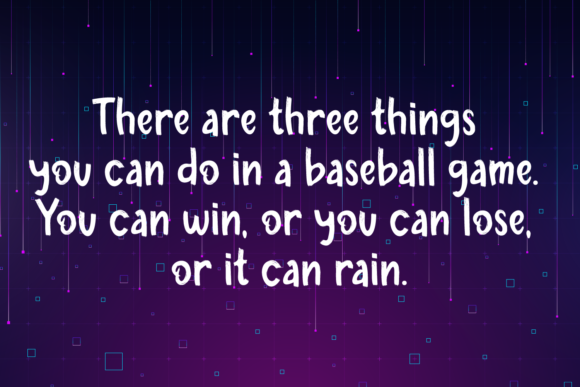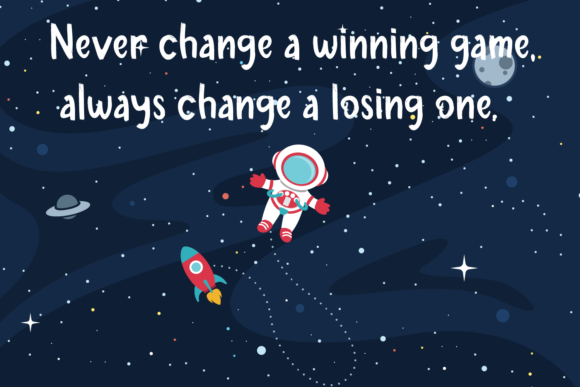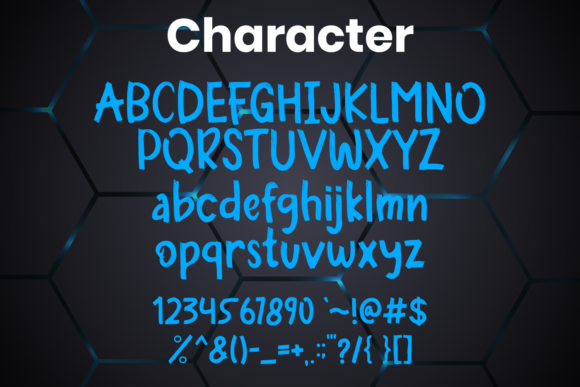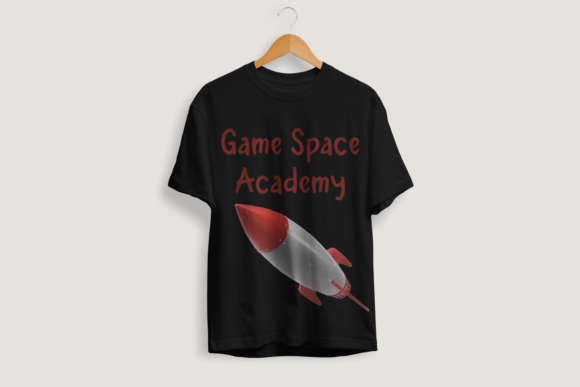
Introducing Game Space Academy Font: A Sweet Paint Brushed Display Font
Are you a designer or crafter looking for a unique and versatile font to elevate your creative projects? Look no further than the Game Space Academy Font, a sweet paint brushed display font that’s perfect for informal or casual designs. In this article, we’ll dive into the features and benefits of this fantastic font, and explore how it can add a touch of personality to your work.
A Strong yet Friendly Shape
Game Space Academy Font boasts a strong yet friendly shape that’s sure to capture attention. The font’s paint brushed texture gives it a playful, hand-crafted feel that’s perfect for designs that require a personal touch. Whether you’re working on a logo, poster, or social media graphic, this font is sure to make your project stand out from the crowd.
One of the best things about Game Space Academy Font is its versatility. Its unique shape and texture make it suitable for a wide range of designs, from informal and casual to playful and creative. Whether you’re designing for a kids’ brand, a lifestyle blog, or a creative agency, this font is sure to fit the bill.
Perfect for Informal and Casual Designs
Game Space Academy Font is specifically designed for informal and casual designs, making it perfect for projects that require a friendly and approachable tone. Some examples of designs that would benefit from this font include:
- Kids’ branding and advertising
- Lifestyle blogs and social media graphics
- Creative agency branding and marketing materials
- Playful packaging and labeling
- Informal event branding and signage
Key Features of Game Space Academy Font
So what sets Game Space Academy Font apart from other fonts? Here are some of its key features:
- Paint brushed texture: Gives the font a unique, hand-crafted feel
- Strong yet friendly shape: Makes it perfect for informal and casual designs
- Versatile: Suitable for a wide range of designs and projects
- Easy to read: Clear and legible, even at smaller sizes
Tips for Using Game Space Academy Font
To get the most out of Game Space Academy Font, here are some tips for using it in your designs:
- Pair it with a simple background: Let the font’s texture and shape take center stage
- Experiment with colors: Try out different colors to find the perfect match for your brand or design
- Use it for headlines and titles: Take advantage of the font’s bold and playful personality
- Don’t be afraid to get creative: Try out different sizes, styles, and effects to make the font your own
In conclusion, Game Space Academy Font is a sweet paint brushed display font that’s perfect for designers and crafters looking to add a touch of personality to their work. With its strong yet friendly shape, versatility, and ease of use, this font is sure to become a go-to in your design arsenal. So why wait? Download Game Space Academy Font today and start creating stunning designs that stand out from the crowd!